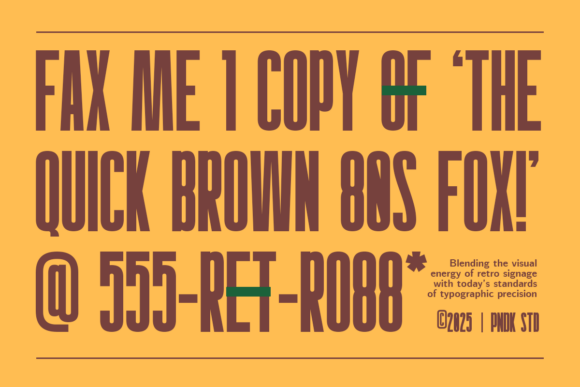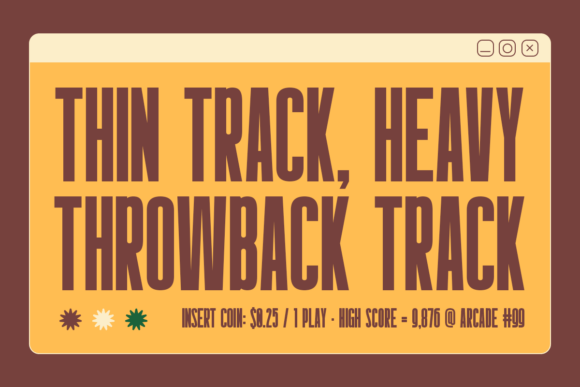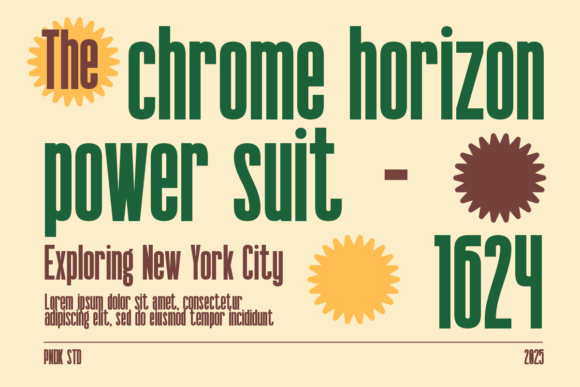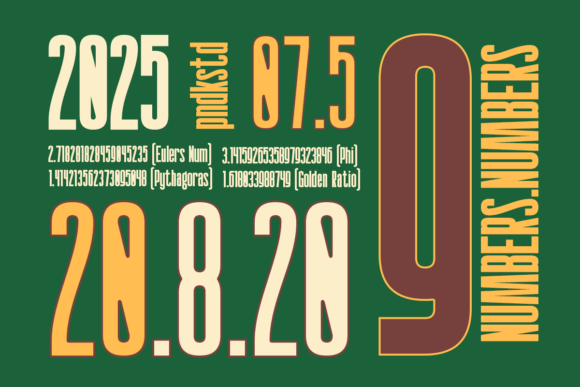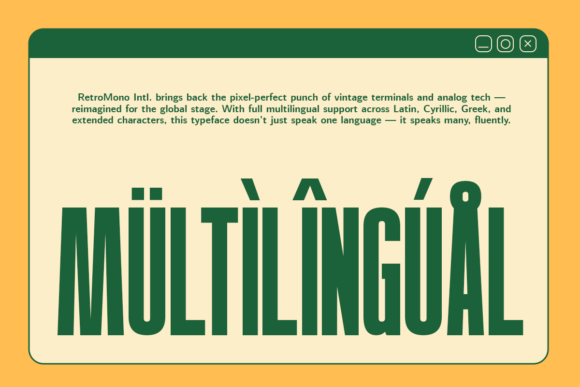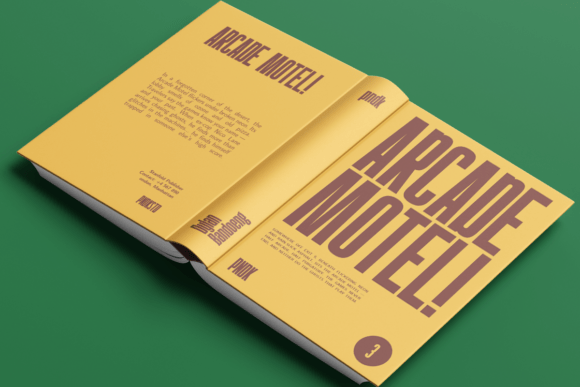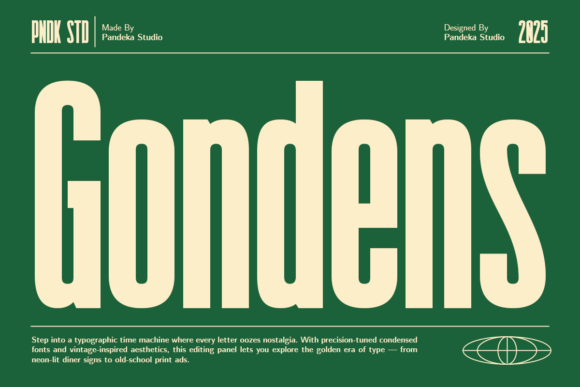
Gondens Font: Elevate Your Designs with a Bold, Condensed Sans-Serif
In the world of typography, finding the perfect font that balances style, legibility, and impact can be a daunting task. However, for designers and crafters seeking a bold, eye-catching typeface, Gondens font is an exceptional choice. This condensed display sans-serif font seamlessly blends retro charm with modern usability, making it an ideal solution for a wide range of design projects.
The Essence of Gondens: A Retro-Modern Typeface
Gondens is characterized by its tall, narrow letterforms that deliver a strong visual impact while efficiently saving space. This distinctive feature makes it particularly suitable for applications where both prominence and brevity are essential, such as posters, magazines, packaging, album covers, and bold branding statements. The font’s design draws inspiration from vintage aesthetics, imbuing it with a nostalgic feel that instantly captures attention.
Despite its roots in traditional typography, Gondens has been meticulously adapted to meet the demands of contemporary design. This harmonious blend of old and new enables designers to infuse their work with a sense of history while maintaining a fresh, modern appeal. Whether you’re aiming to evoke a classic vibe or simply desire a typeface that stands out, Gondens strikes the perfect balance between nostalgia and visual innovation.
Versatility and Practicality
While Gondens is offered in a single Regular style, its versatility should not be underestimated. The font includes a comprehensive set of uppercase and lowercase letters, numbers, punctuation, symbols, and multilingual support, providing designers with a wide range of creative possibilities. This extensive character set makes Gondens an excellent choice for headlines, logos, editorial titles, and promotional graphics, ensuring that your work will have a striking and memorable presence.
Accessibility and Ease of Use
Applications of Gondens Font
The applications of Gondens are vast and varied, making it a valuable addition to any designer’s toolkit. Here are some of the key areas where Gondens truly shines:
- Posters and Flyers: The bold, condensed nature of Gondens makes it perfect for creating eye-catching posters and flyers that demand attention.
- Magazines and Editorials: Use Gondens to craft compelling headlines and titles that add a touch of sophistication and style to your editorial content.
- Packaging: Gondens can help your product stand out on crowded store shelves with its unique blend of retro charm and modern appeal.
- Album Covers: Give your music project a distinctive look with Gondens, which can add a vintage or contemporary touch to your album artwork.
- Branding and Logos: Create memorable brand statements and logos with Gondens, which offers the perfect combination of boldness and elegance.
Gondens font is a powerful tool for designers and crafters looking to elevate their work with a bold, condensed sans-serif typeface. Its unique blend of retro charm and modern usability, combined with its versatility and practical features, makes it an excellent choice for a wide range of design projects. Whether you’re creating posters, magazines, packaging, or branding statements, Gondens is sure to leave a lasting impression. With its ease of use and extensive character set, Gondens is poised to become a go-to font for creatives seeking to make a bold statement.
Embrace the world of Gondens and discover how this exceptional font can transform your designs, giving them a striking and memorable presence that sets them apart from the rest.